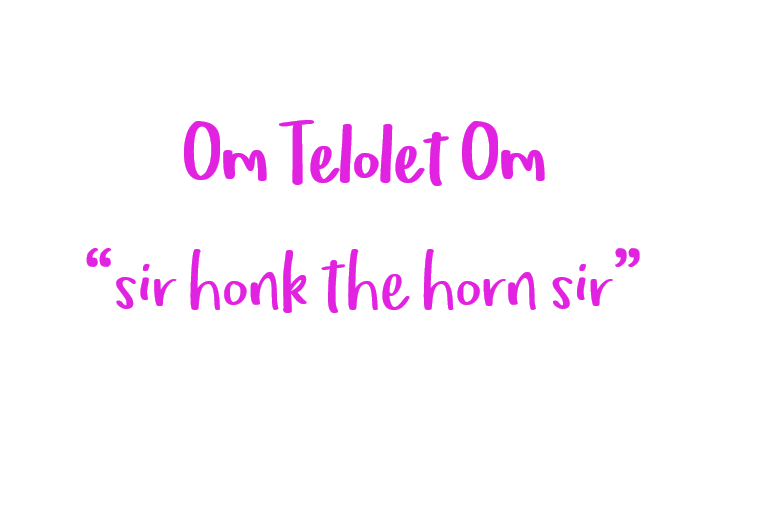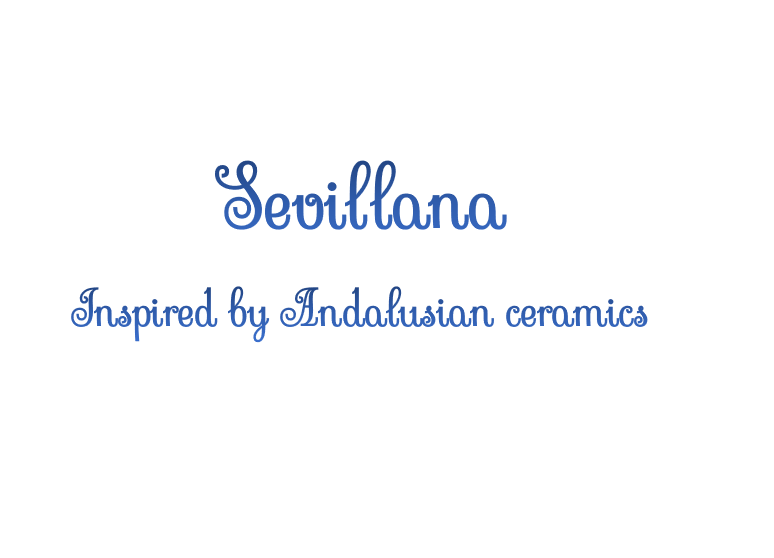
In a world where standard typefaces often feel too polished, handwritten styles bring a friendly, personal touch.
In 2025, these handwriting-style fonts continue to offer a personal, customizable way to stand out amid sleek and minimalistic design trends.
For some designs, classic typefaces are too perfect. If your design feels cold or generic, a handwriting-style font might be exactly what you need to add warmth and personality.
Introducing a handwriting-style font frees your design from the confines of perfect uniformity. The genuine irregularities and imperfections lend a captivating allure, distinguishing your work with individuality and charm.
Why handwriting fonts matter
They add warmth, authenticity, and uniqueness to your designs, making them stand out from the crowd and establishing a distinct personal connection with your audience.
How to use handwriting fonts in web design
Handwritten typography breathes visual variety into your designs. Script fonts add a dash of class, the bold styling of graffiti fonts conveys an urban look, and the varied thickness of brush fonts’ strokes provides a unique touch.
However, handwriting fonts pose accessibility challenges, making them a better choice for display fonts: Limit them to titles, headings, and pull quotes, and avoid using them in body text. Experiment with bold headings, mix them with legible sans-serif body text, and adjust spacing to ensure clarity. A touch of extra white space goes a long way.
10 realistic handwriting fonts to energize your designs
Now that you know how to style and maintain readability, let's explore a curated list of fonts that bring personal flair to any design.
1. Billy Ohio
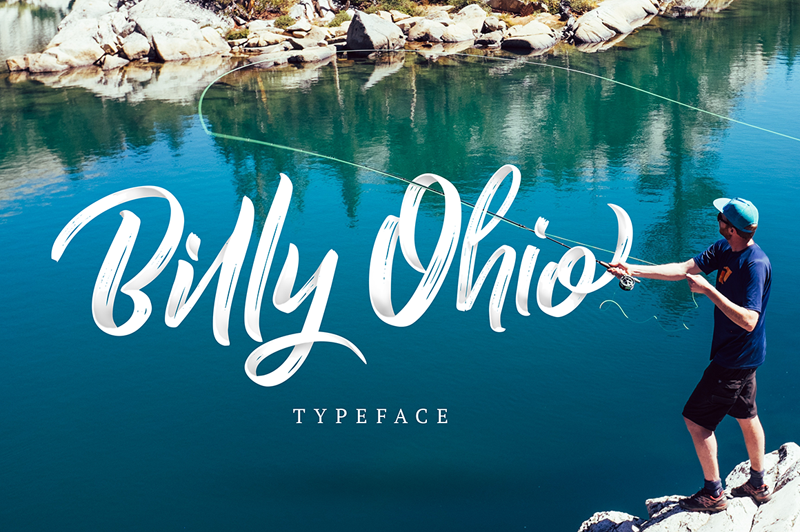
Billy Ohio, a handwriting typeface by Alit Design, is a dry brush script font that uses textures and shadows for a three-dimensional look. Curved strokes and looped letters evoke a casual vibe, suiting sports-related designs, the outdoors, and local eateries or boutiques. The full character set includes alternate glyphs and a large collection of swashes.
2. Jane Austen
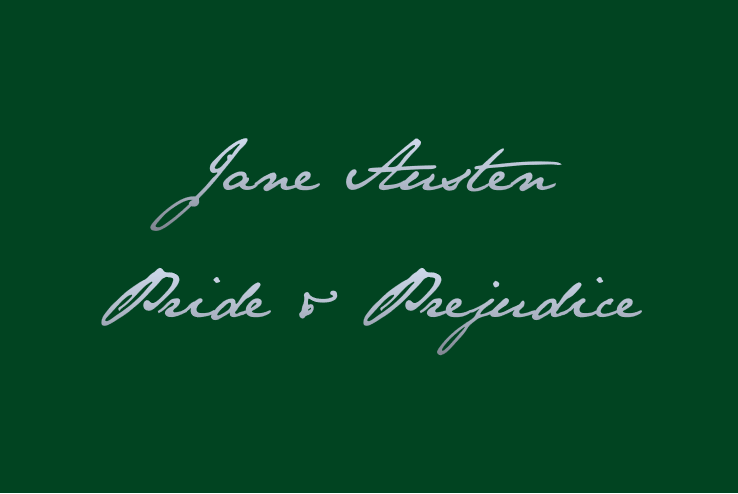
Designer Pia Frauss drew inspiration from Pride and Prejudice author Jane Austen’s handwriting to create a beautiful script font of the same name. Ideal for literature-focused or historical projects, it encapsulates Austen’s elegance and literary charm with sophistication and authenticity.
3. ITC Kristen
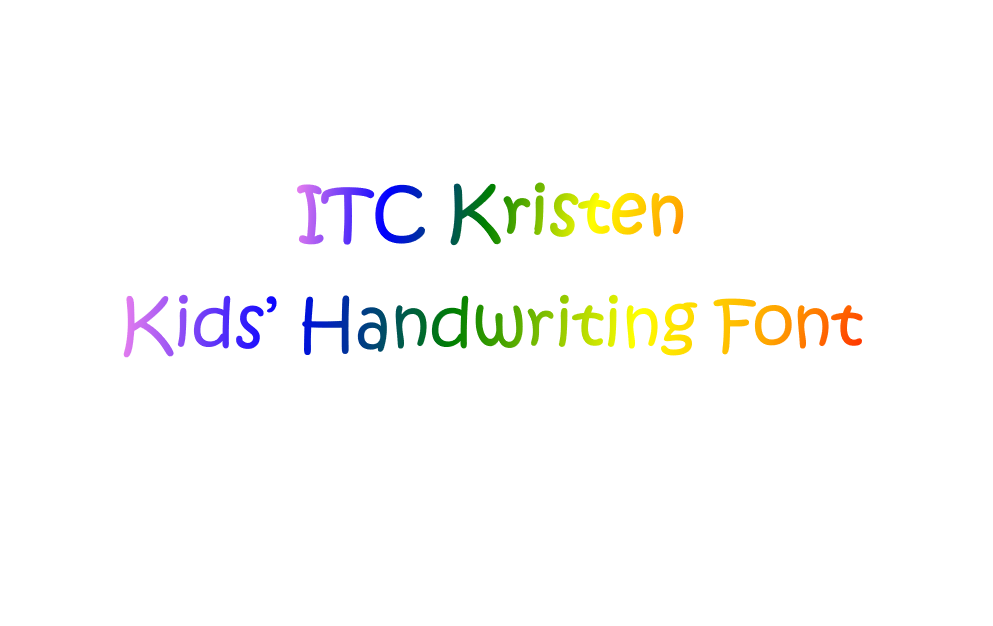
Experience the whimsical allure of ITC Kristen, a charming font that resembles a young child’s penmanship. Designer George Ryan’s letters capture the unevenness of hand-printed writing while still being legible. By channeling a child’s innocent wonder and imaginative spirit, ITC Kristen infuses youthful nostalgia and creativity into designs, making it perfect for playful and imaginative projects that promote products and services for children.
4. Lemon Tuesday
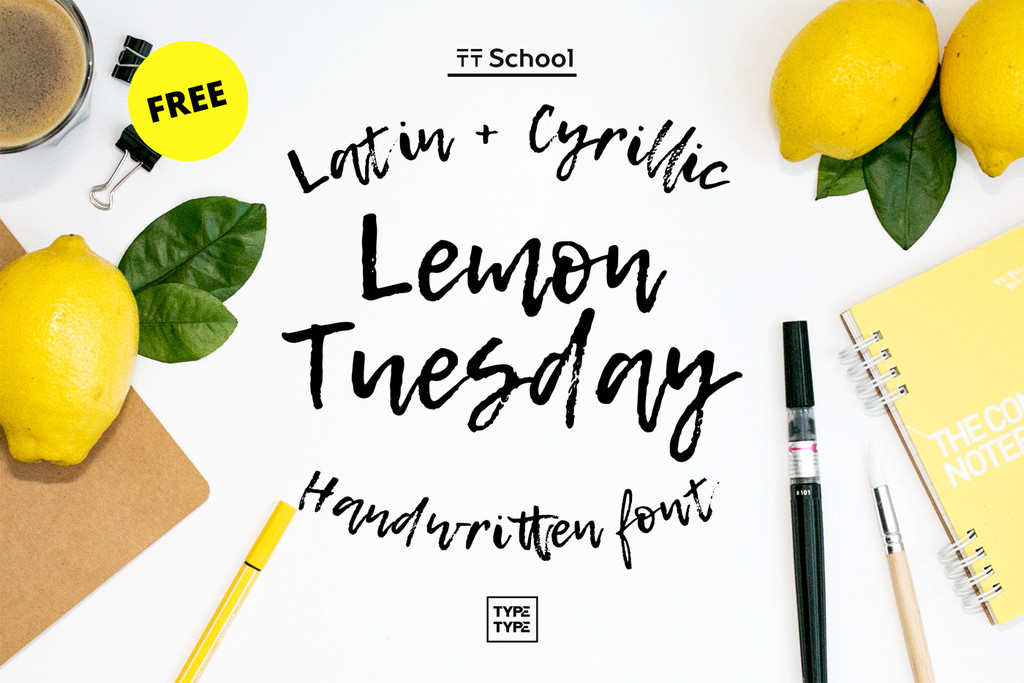
Lemon Tuesday is a casual, lively brush-style calligraphy font by Daria Kwon and Ivan Gladkikh. Angular uppercase letters grab readers’ attention, while the curved lowercase counterparts guide viewers’ eyes along with a sense of carefreeness. Compatible with Latin and Cyrillic alphabets, Lemon Tuesday is a versatile multi-language option for inspirational designs, arts and crafts businesses, and cafes.
5. Marcel
The Marcel font draws inspiration from the handwriting of Marcel Heuzé, a French internee who sent letters to his family from a German labor camp during World War II. P22 Type Foundry’s Carolyn Porter found Marcel’s letters in an antique shop and was captivated by his expressive, calligraphic style.
Carolyn devoted years to research and design work before compiling more than 1,300 separate glyphs in the font’s pro version, including ink spots, swashes, ornaments, and ligatures. The creation of the Marcel font was so unique that the designer wrote a book about it. Marcel’s Letters: A Font and the Search for One Man’s Fate tells the story of the font’s origins and Carolyn’s attempts to discover whether Marcel returned home to his family safely.
6. Moonstone History
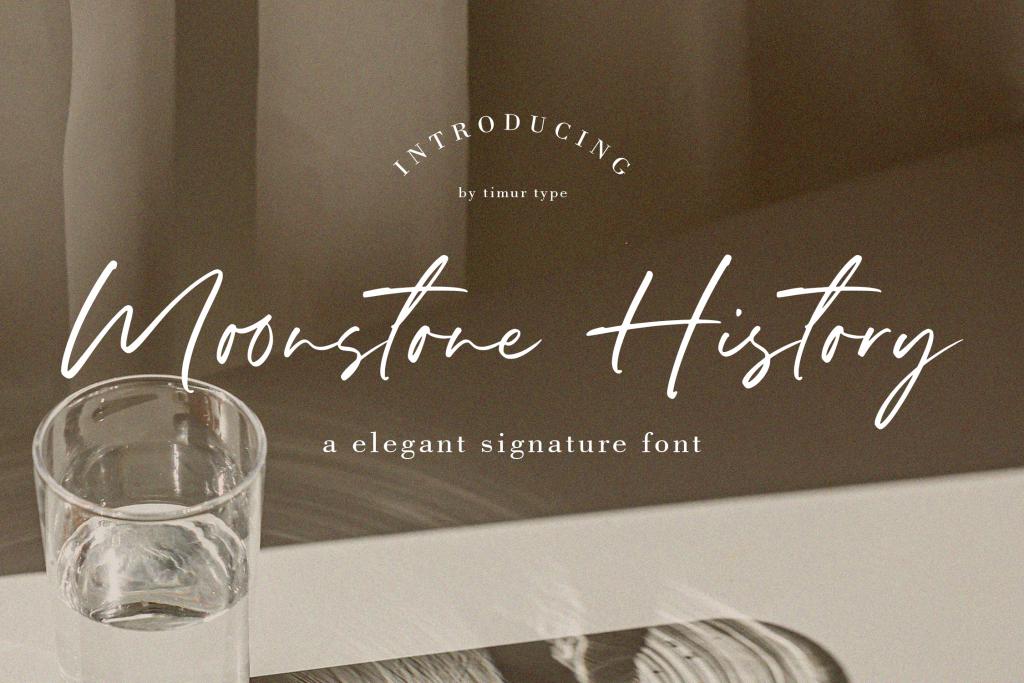
Moonstone History is a fluid, versatile signature font by the Timur Type foundry whose nostalgic aesthetic makes it ideal for projects with a vintage feel. Its uneven baseline gives it a natural character, making it a strong choice for designs for handcrafted products, clothing boutiques, and artisanal food and drink items.